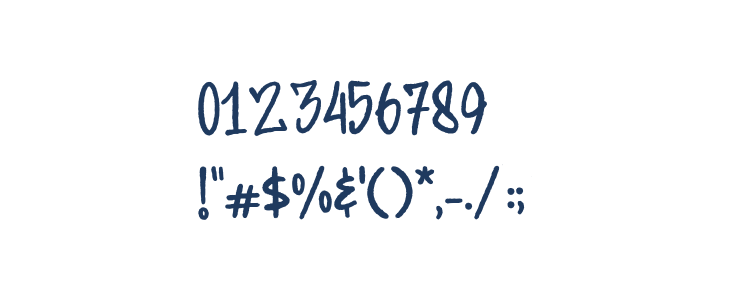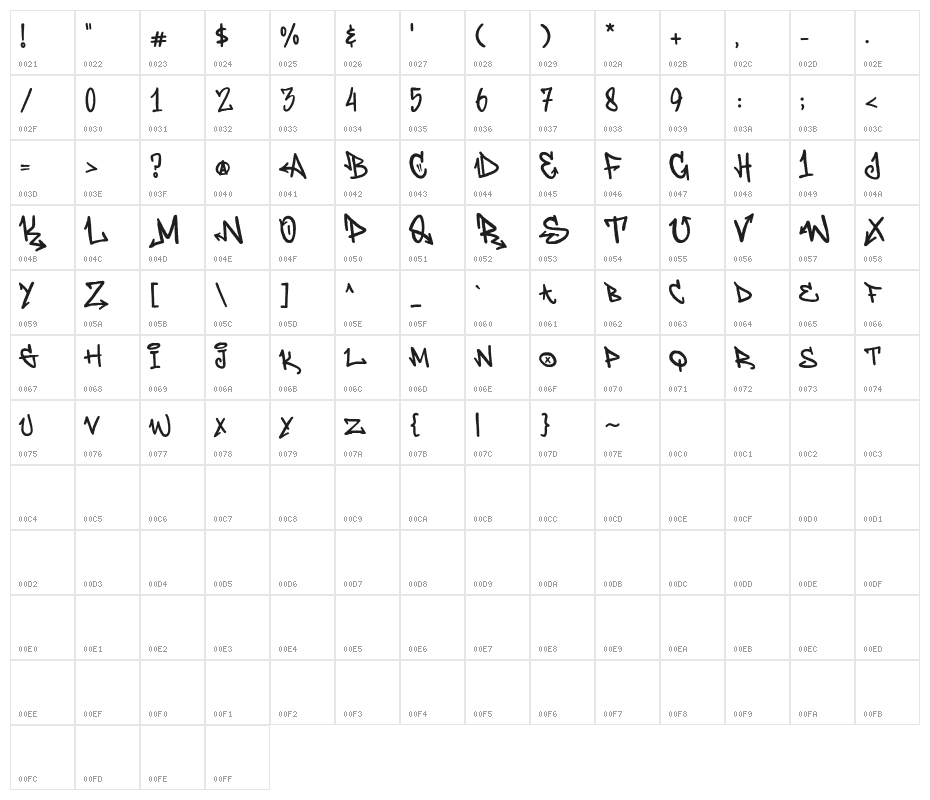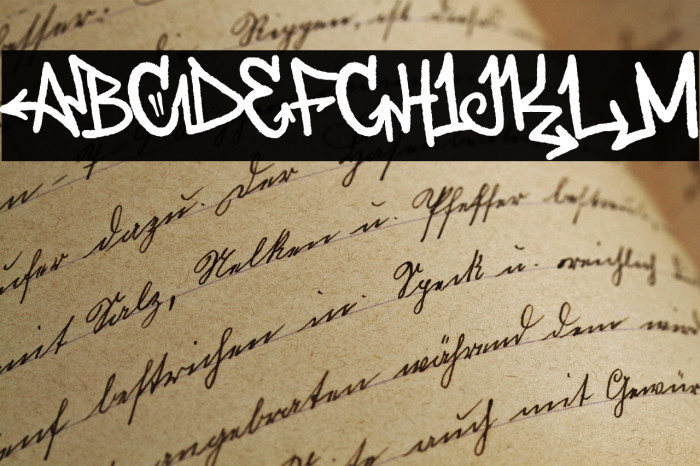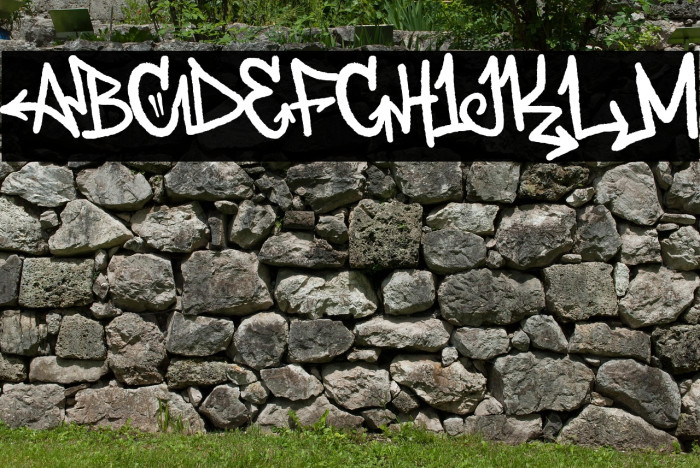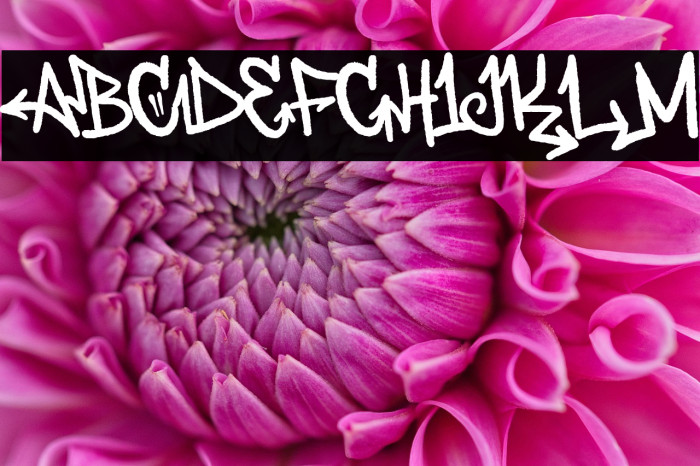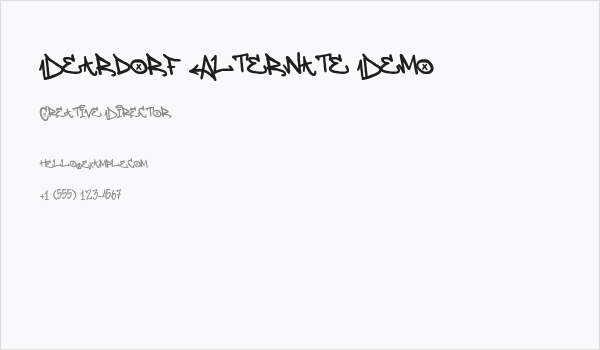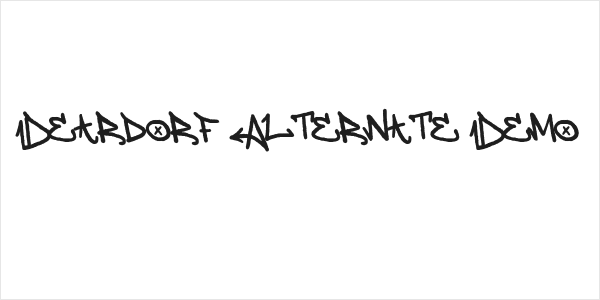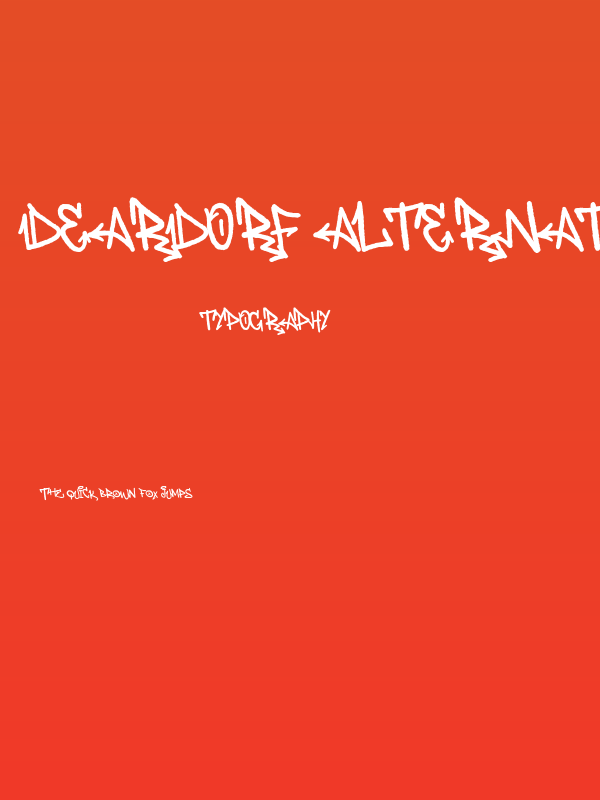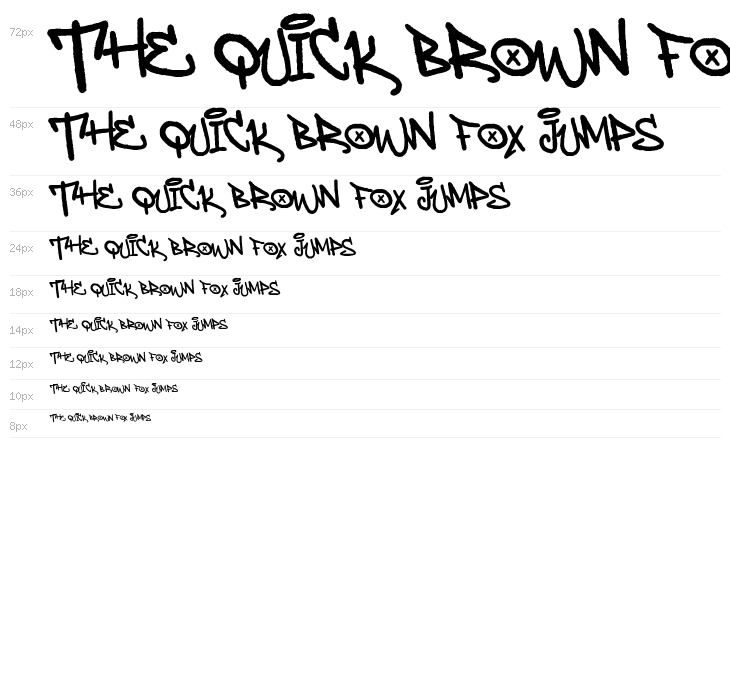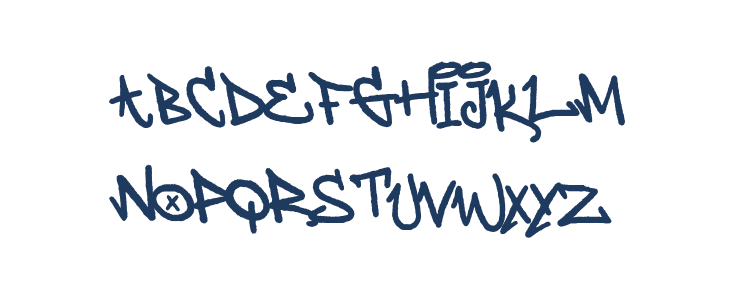
Deardorf Alternate Demo Font
Deardorf Alternate Demo Description
This font features a bold, graffiti-inspired style with dynamic and angular letterforms. The uppercase and lowercase letters exhibit a playful yet edgy aesthetic, characterized by sharp angles and unique embellishments. The numbers and special characters maintain this urban, street-art vibe, making the font highly distinctive. The strokes are thick and consistent, providing a strong visual impact. This font is ideal for projects that require a bold and unconventional look, such as streetwear branding, music album covers, or urban-themed posters.
| Overall Style | Urban, Graffiti, Edgy |
| Use Case | Logos, Posters, Headlines |
| Proposed Projects | Streetwear branding, music album covers, urban-themed posters. |